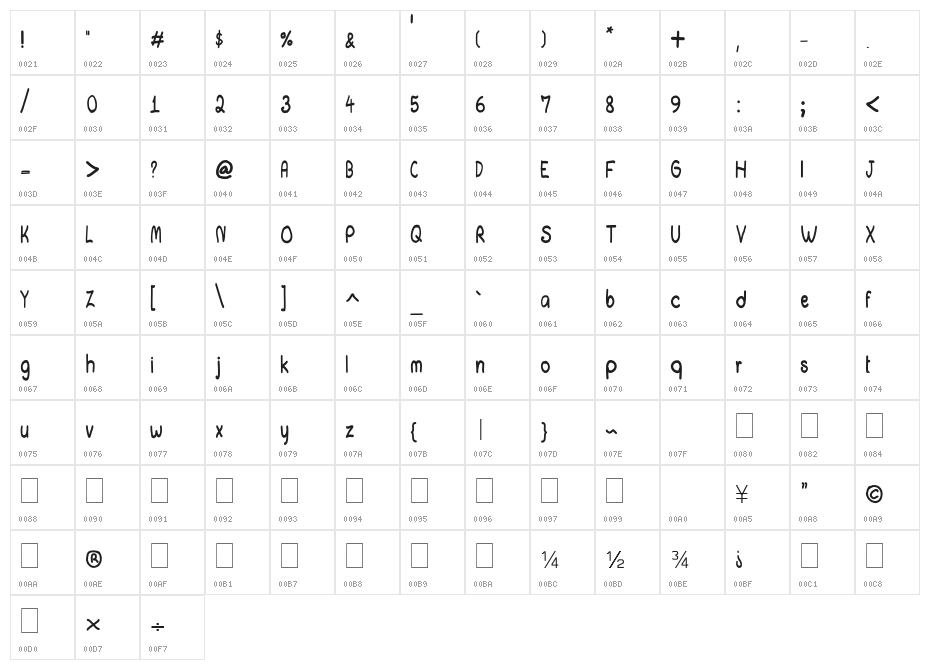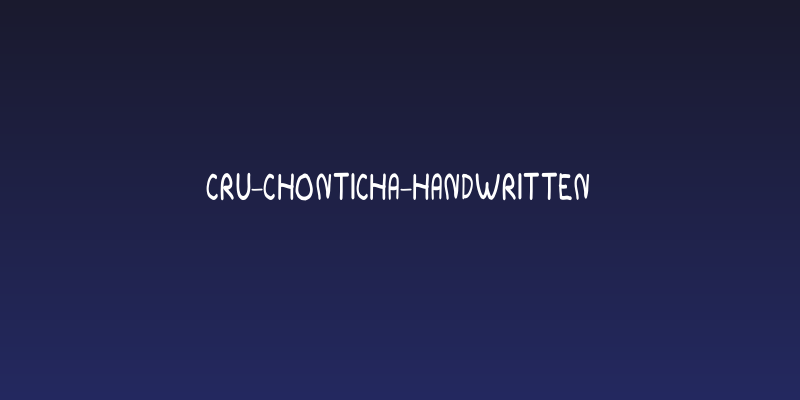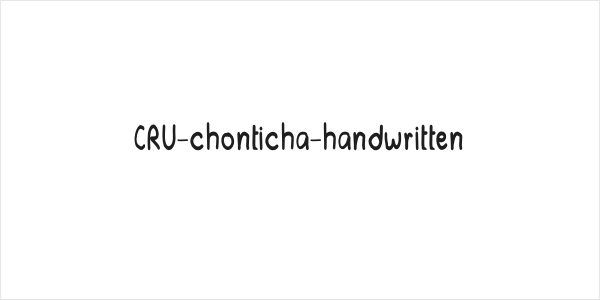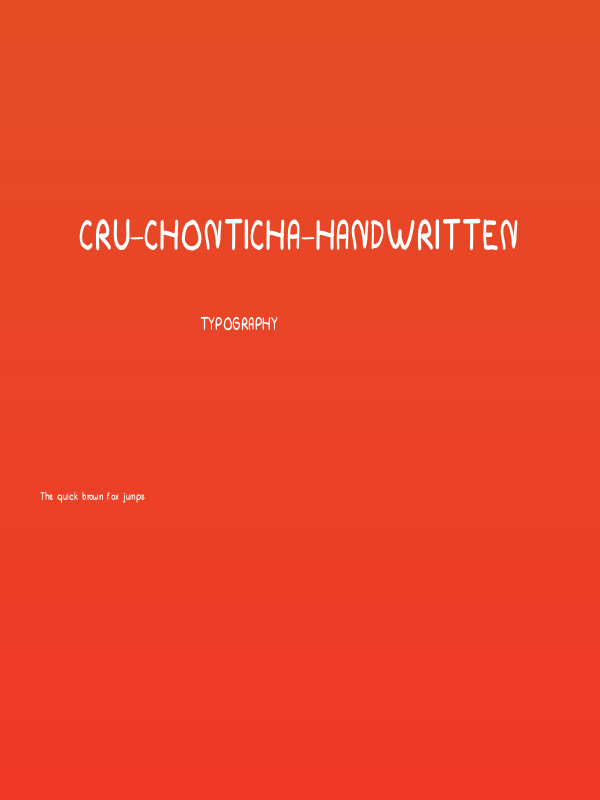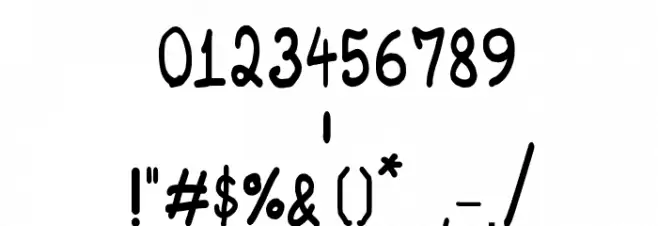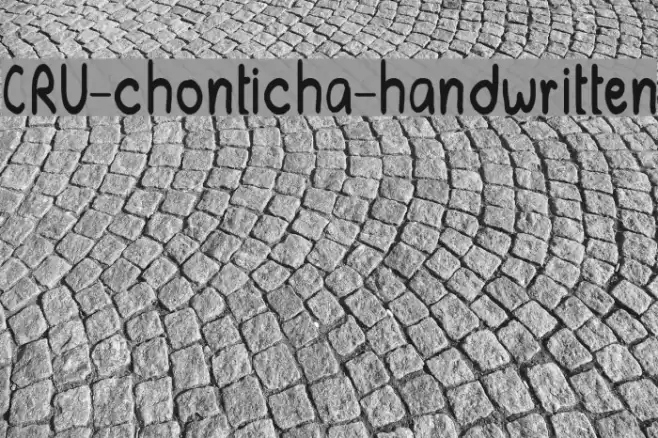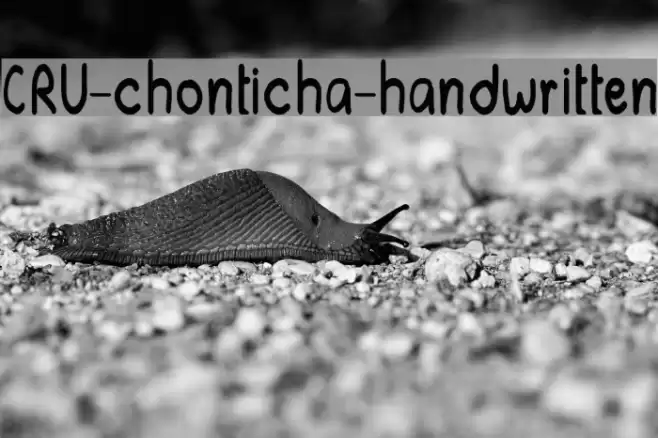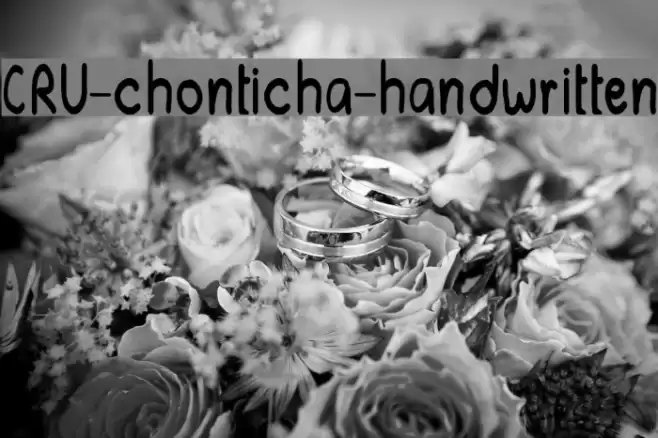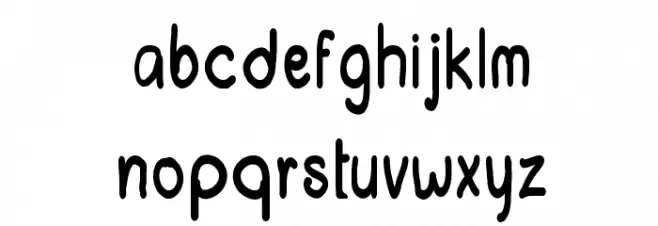
CRU-chonticha-handwritten Font
CRU-chonticha-handwritten Description
This font features a playful and casual handwritten style, characterized by its rounded and slightly irregular letterforms. The uppercase letters maintain a consistent height, while the lowercase letters exhibit a natural flow that mimics authentic handwriting. The numerals are clear and legible, matching the overall informal aesthetic. Special characters are included, maintaining the same whimsical style. The font's approachable and friendly appearance makes it suitable for projects that require a personal touch.